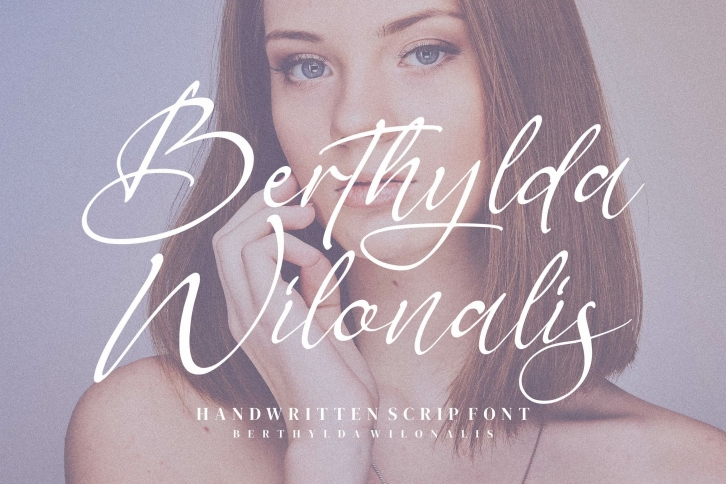
Berthylda Wilonalis is a great font that was designed by Integritype Studio. Imagine the amount of combinations you can create using this font! The archive is 3.86 MB and it was released on October 20, 2021. Berthylda Wilonalis looks beautiful on wedding invitations, greeting cards, logos, posters, labels, t-shirt designs, logos, business cards and is perfect for use in ink or watercolor works, fashion, magazines, packaging and food menus, children's books and more!